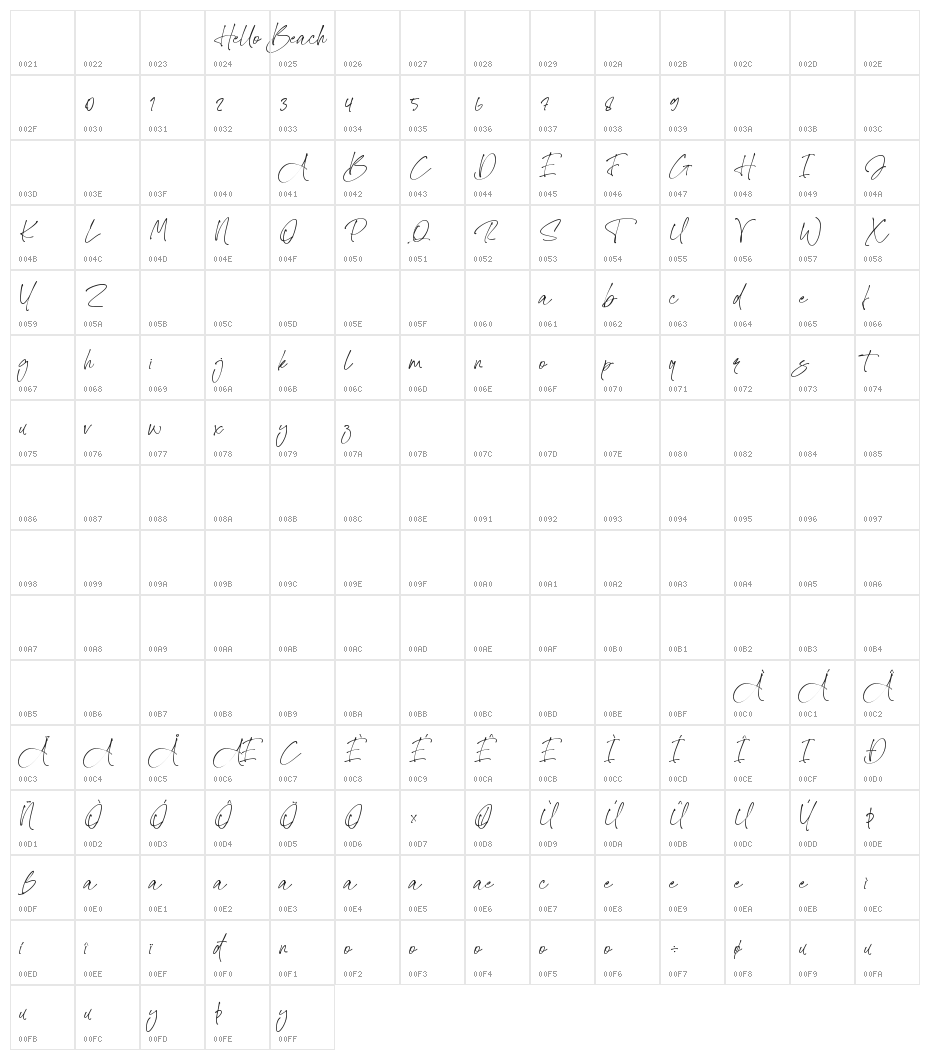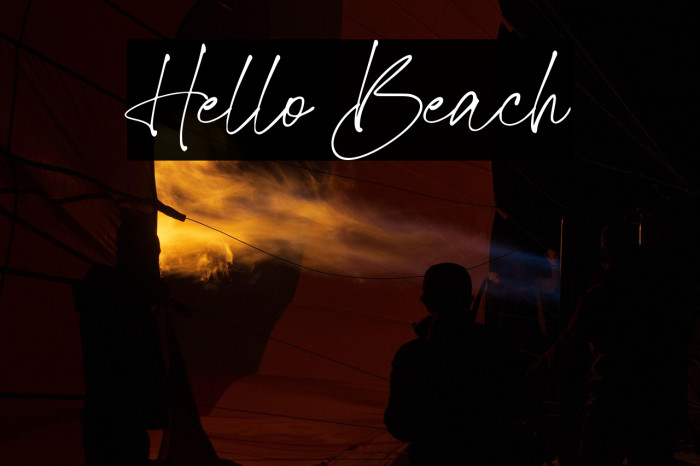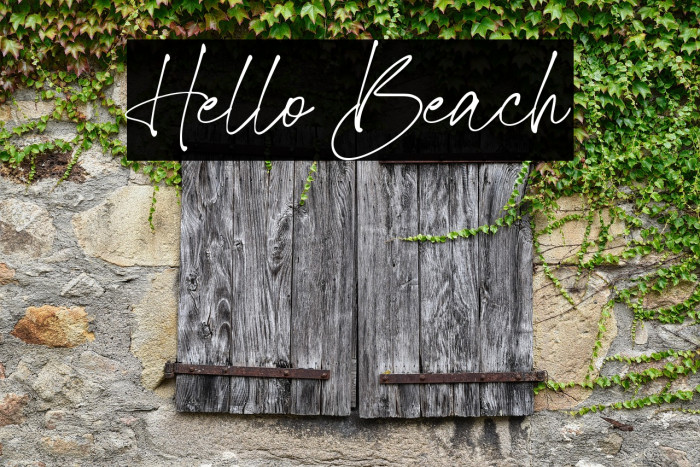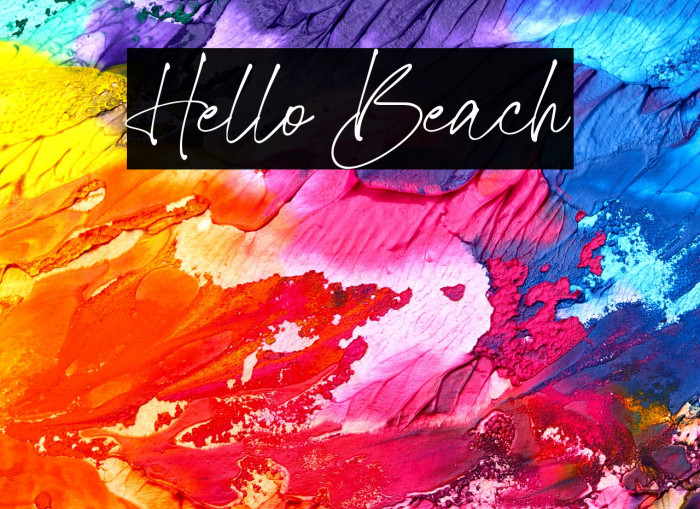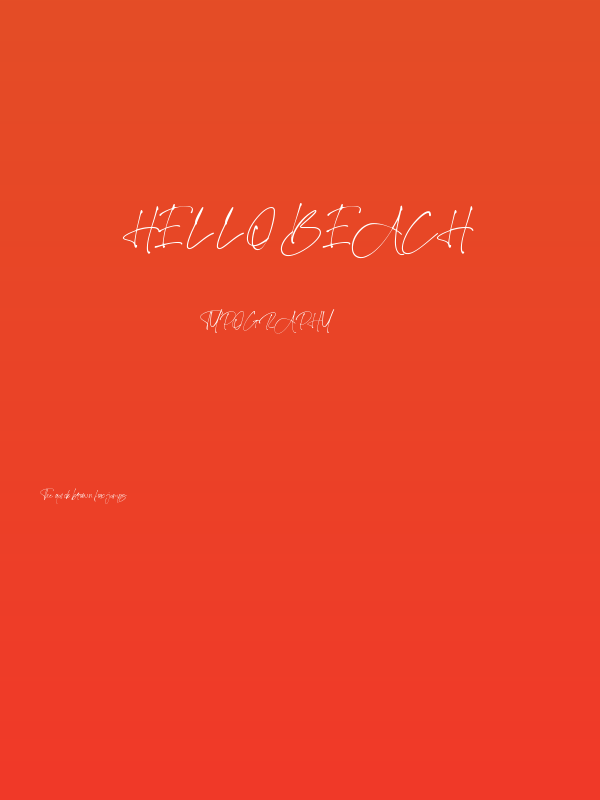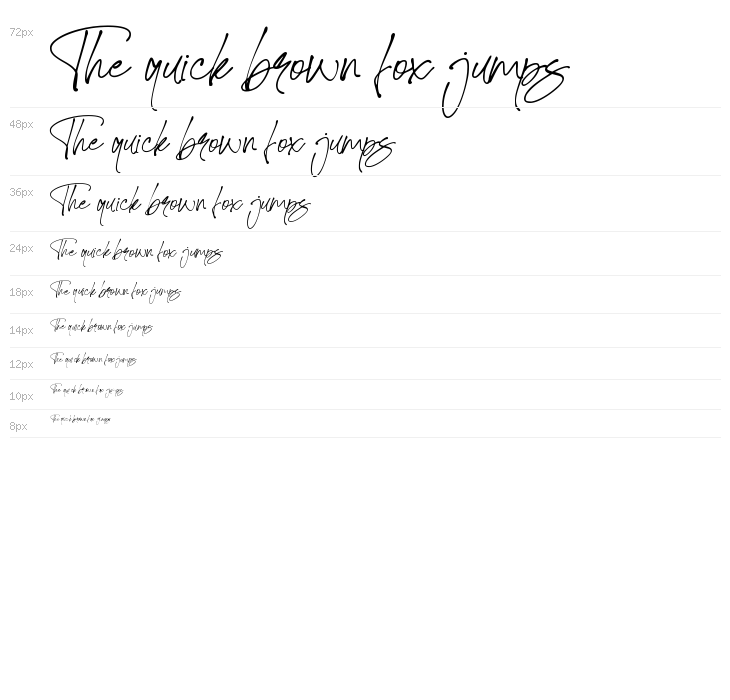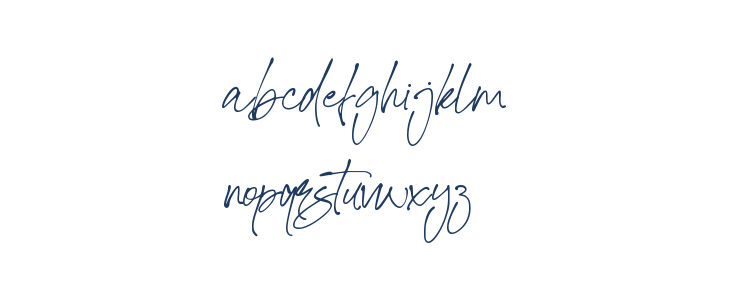
Hello Beach Font
Hello Beach Description
This font exudes a casual, handwritten style that is both elegant and relaxed. The characters are fluid and connected, giving the impression of a personal touch, as if written with a smooth pen. The uppercase letters are tall and slightly slanted, while the lowercase letters maintain a consistent flow with a slight slant, enhancing the overall cohesiveness. The numerals are distinct yet harmonize well with the alphabet, maintaining the same handwritten aesthetic. The special characters are crafted with the same attention to detail, ensuring they blend seamlessly with the rest of the font. This font is perfect for projects that require a personal, human touch, such as invitations, greeting cards, or branding for lifestyle products.
| Overall Style | Casual, Elegant |
| Use Case | Headlines, Logos, Invitations |
| Proposed Projects | Ideal for invitations, greeting cards, personal branding, and lifestyle product packaging. |